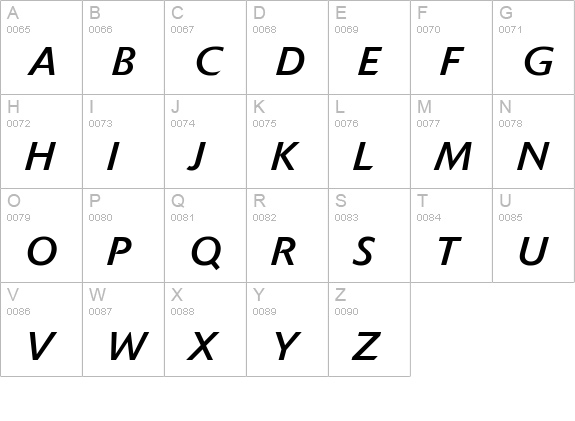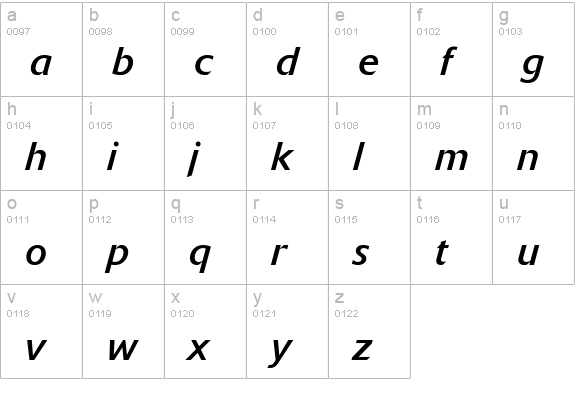
Delta Jaeger (R) Book Italic is a comfortable, highly readable, italic variant in the Delta typeface family \xE2\x80\x94 well suited to long-form body text, articles, and editorial content.
Delta Jaeger (R) Book Italic is a sophisticated and elegant typeface that exudes a sense of modernity and professionalism. Its sleek design and subtle italicized style make it perfect for adding a touch of sophistication to any project. The font features clean lines and graceful curves that give it a timeless appeal. What sets Delta Jaeger (R) Book Italic apart is its versatility - suitable for a wide range of design applications, from branding and advertising to editorial and web design. Whether you're looking to create a sleek and contemporary look or add a touch of elegance to your project, this font has got you covered. And the best part? Delta Jaeger (R) Book Italic is available for free download at FontsMarket.com, making it easily accessible to designers and creatives looking to elevate their work with a premium font. Don't miss out on the opportunity to enhance your designs with this stylish and sophisticated typeface.